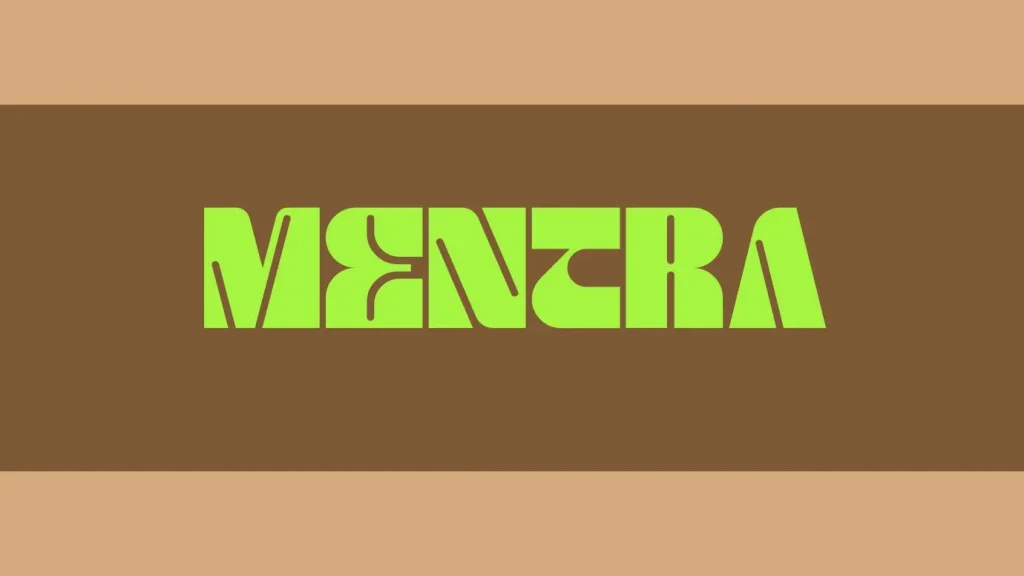
This typeface is a great option if you are searching for a classy and fashionable style for your next project. This font design may also be used to pair with
Heru Utama Putra designed the Mentra Font. Along with numerals and characters, this font has lowercase and uppercase characters. The texture and clarity of this style are fantastic.
This typeface is a great option if you are searching for a classy and fashionable style for your next project. This font design may also be used to pair with other fonts to enhance the beauty of your project's layout.
This style includes contemporary designs and glamorous modern patterns that can be used to create many different projects.
Due to its attractive appearance, it attracts the viewers’ attention just because of its sharp features. The font's letters are incredibly appealing and can be used to create a variety of designs.
Features of Mentra Font
It is an awesome typeface with a very unique style, it can be used for various purposes, including headlines, logos, branding, and more. This typeface is the perfect choice for all of your designs if you are seeking a modern, stylish typeface.
You can design with this style book covers and banners, and more. The typeface is ideal for headlines on your website as well as blogs. A large number of businesses are using this typeface in their designs.
This font type is mostly utilized for company logos, T-shirt designs, business and greeting card designs, posters, marketing projects, advertising campaigns, booklet layouts, social media postings, and many more uses.
This typeface contains unique glyphs that provide it a unique design. Each character is created with the amazing art of detail. The letters are all exceptionally sharp and have a clean design. The textual style is an amazing choice for creating unique and stunning designs must try this style.
This font type is mostly utilized for company logos, T-shirt designs, business and greeting card designs, posters, and marketing projects.
Heru Utama Putra designed the Mentra Font. it is a display text style.